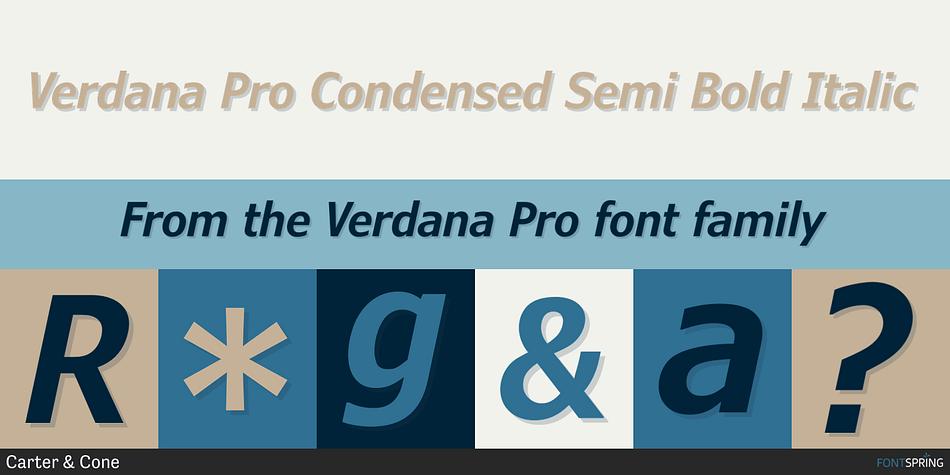
Verdana Pro Condensed Semi Bold Italic
Designed by Matthew Carter, David Ross and David Berlow, Verdana Pro is a sans serif font family. This typeface has twenty styles and was published by Carter & Cone.
Matthew Carter designed Verdana specifically for the screen. Its clarity and versatility, along with hinting from Tom Rickner, have withstood the medium’s limitations. More than 20 years later, Verdana is still among the most legible, usable fonts on the Web. Three new weights, a Condensed width in five weights, and small caps in both roman and italic make it a versatile fit for print and mobile use too. David Berlow expanded the family with help from David Jonathan Ross.
Foundry Carter & Cone
Designers Matthew Carter, David Jonathan Ross, David Berlow